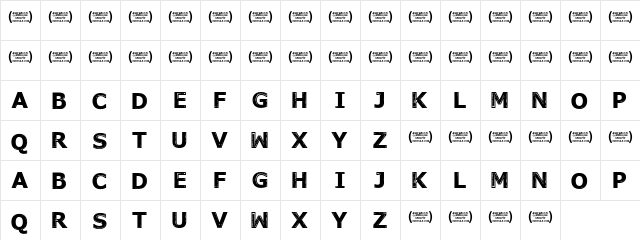
November Mornings Regular
| Foundry | Font Monger |
| Designer | Chris Vile |
Design Context for November Mornings Typeface
November Mornings is a composed and adaptable typeface that performs quietly and consistently across a wide range of design contexts.